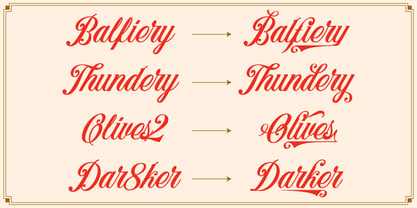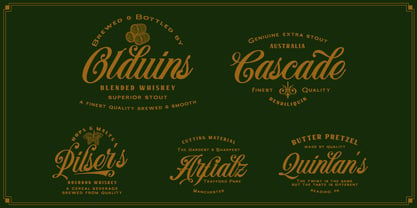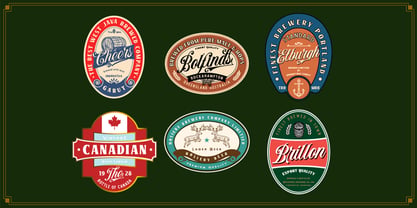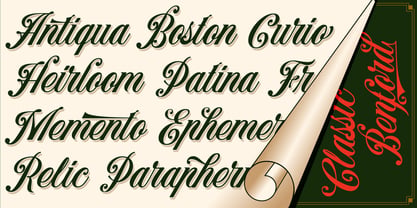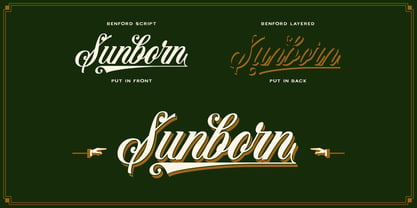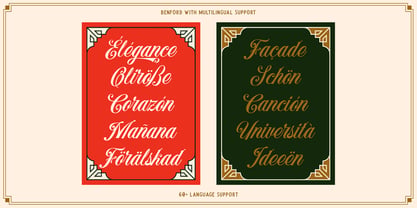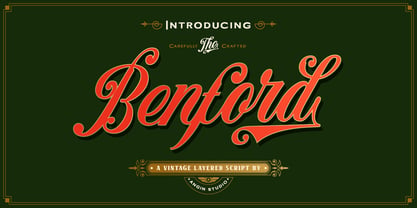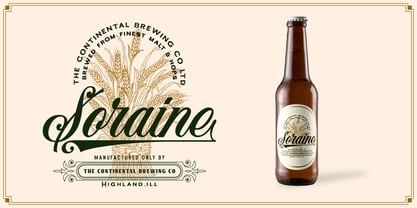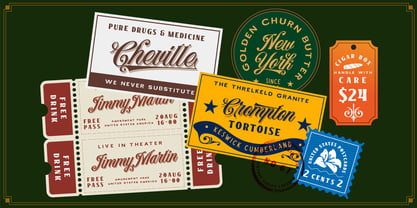
Benford
by Angin Studio
The Benford Font Family was designed by Ahmad Aswin, David Novrian and published by Angin Studio. Benford contains 2 styles and family package options. More about this family
It is always a pleasure for us every time we introduce our newest product to all of you, Now, with our deepest heart let us introduce our new font Benford. Benford is a vintage font pack contained vintage script with layered style and many features. This font pack inspired from old fashion script, Vintage beer labels, Ephemera and Old packaging. Created carefully and also easy to use, have a deep look into our display presentation and feel the beauty touch your heart. We were really enjoyed the process of making this font, And today we bring the joy to all of you. Thank You.
Designers: Ahmad Aswin, David Novrian
Foundry: Angin Studio